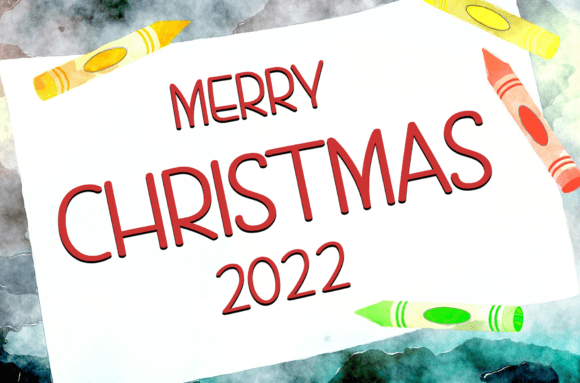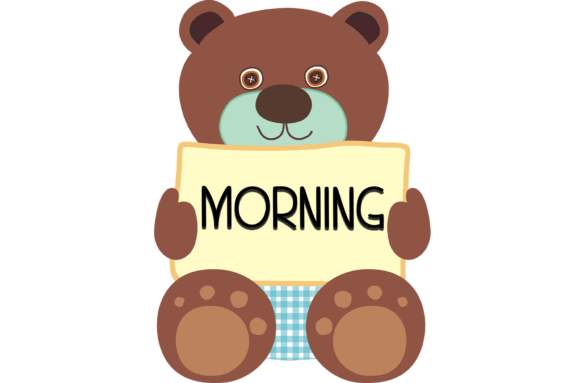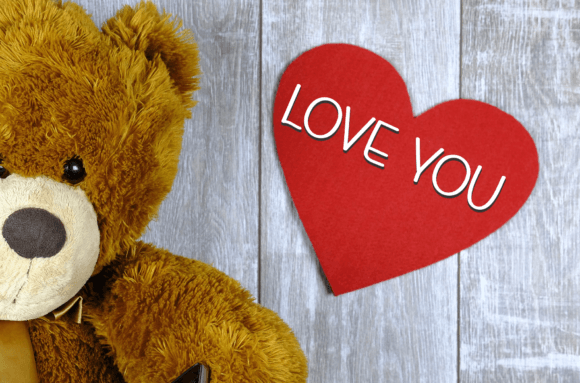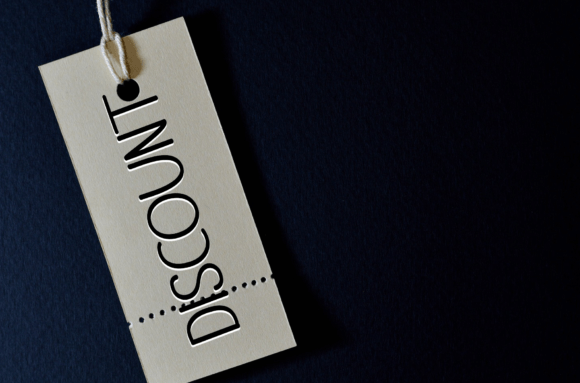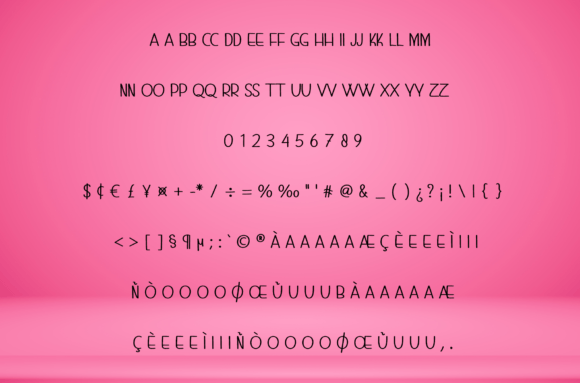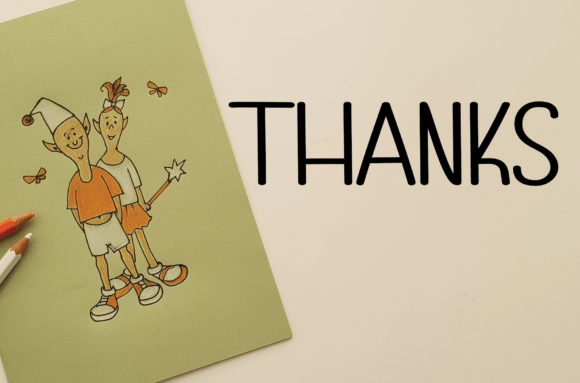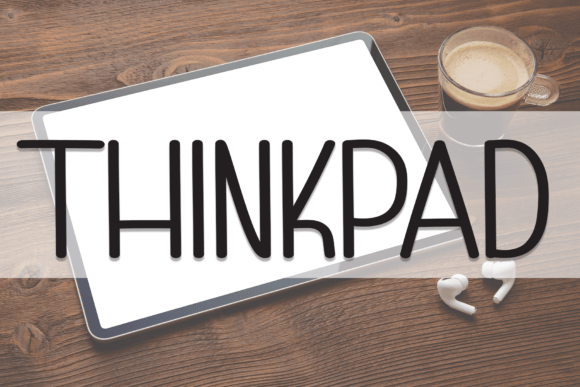
Thinkpad Font
About Thinkpad Font
Thinkpad font is a friendly and inviting handwritten typeface designed to be a favorite addition to your font library. Its warm, natural style makes it an excellent choice for a wide range of creative projects. Whether you are creating invitations, branding, social media graphics, or personal projects, Thinkpad font adds a lively and personal touch that brings your designs to life.
Warm and Approachable Handwriting Style
The charm of Thinkpad fon lies in its smooth, flowing strokes and approachable letterforms. It offers a balance of readability and personality, making your text both clear and engaging. This font’s modern yet warm style suits various design needs, from casual to professional.
Versatile Uses for Thinkpad Font
Thinkpad fon is ideal for many creative applications, including:
• Wedding invitations and greeting cards
• Brand logos and stationery
• Social media content and marketing materials
• Personal notes and creative lettering
• Flyers, posters, and print designs
Its versatile design works beautifully in both digital and print formats, making it a reliable choice for any project.
Bringing Personality and Warmth
Using Thinkpad fon adds warmth and personality to your work. Its handwritten style fosters a connection with your audience, making your messages feel genuine and heartfelt. This font enhances your creativity by offering a unique handwritten touch that’s both fresh and timeless.
Why Choose Thinkpad Font?
• Friendly and readable handwritten style
• Clear, smooth letterforms
• Suitable for various creative projects
• Adds warmth and personal touch
• Great for print and digital media
Final Thoughts on Thinkpad Font
In conclusion, Thinkpad fon is a friendly and versatile handwritten typeface perfect for wedding invitations, branding, social media, and more. Its warm and lively style makes it a valuable asset for designers seeking personality and charm.